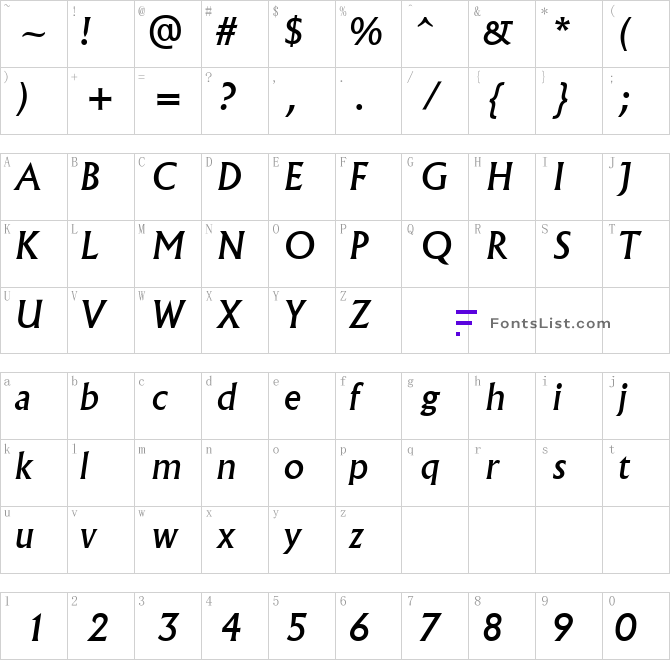
- Font Name:Albertus Medium
Albertus-Medium-Italic.ttf is a very beautiful artistic font, Albertus-Medium-Italic.ttf is widely used in the design and printing of various books and pictures,Albertus-Medium-Italic.ttf has a strong visual impact,Albertus-Medium-Italic.ttf is a commonly used font in newspapers, magazines and books, and is used in posters, e-commerce Poster design, store design, logo design, font design and other fields.Albertus-Medium-Italic.